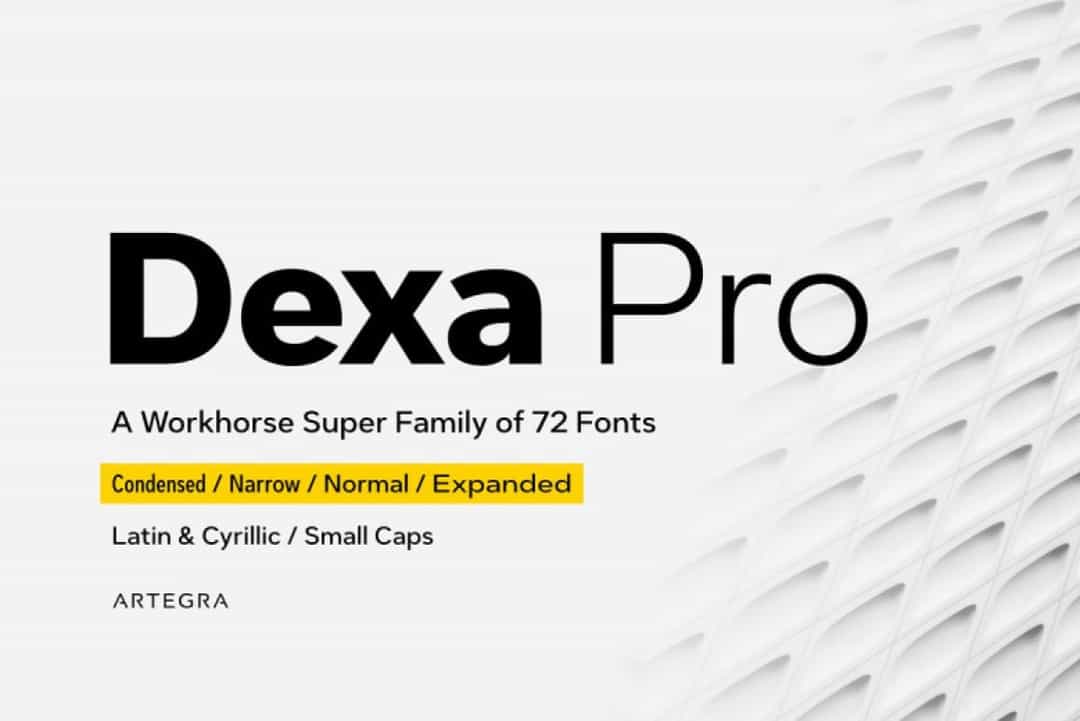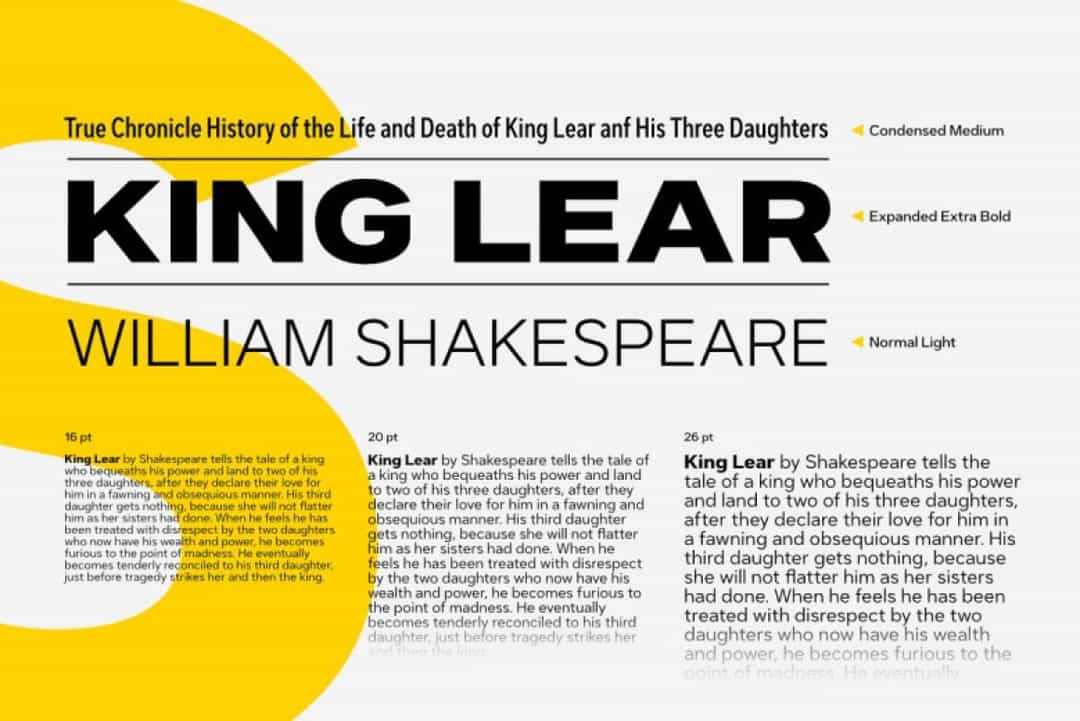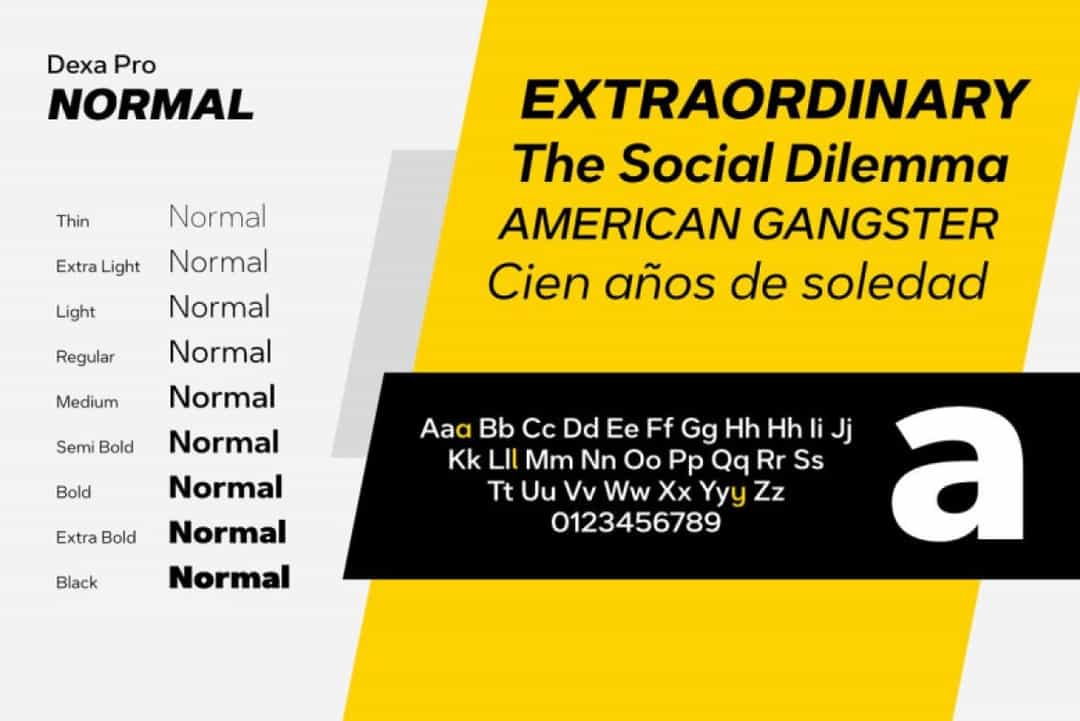
Discover Dexa Pro Font Family, part of the Sans Serif collection—a versatile and unique font perfect for adding a personal touch to your projects. Download it for free and enjoy crafting designs with style, from invitations to social media posts. This font is available exclusively for personal use, giving you the freedom to create without limits. Unlock your creativity with Dexa Pro Font Family today!
Dexa Pro Sans Font was developed by Ceyhun Birinci in 2000 as an attempt to craft a modern superfamily that draws its inspiration from classical sans serif families. Comprised of 72 fonts that come condensed normal width normal thin wide extended and narrow sizes; 18 fonts per width range from black thin weights along with their real italic counterparts; over 770 characters support all Latin languages (and Cyrillic as well).